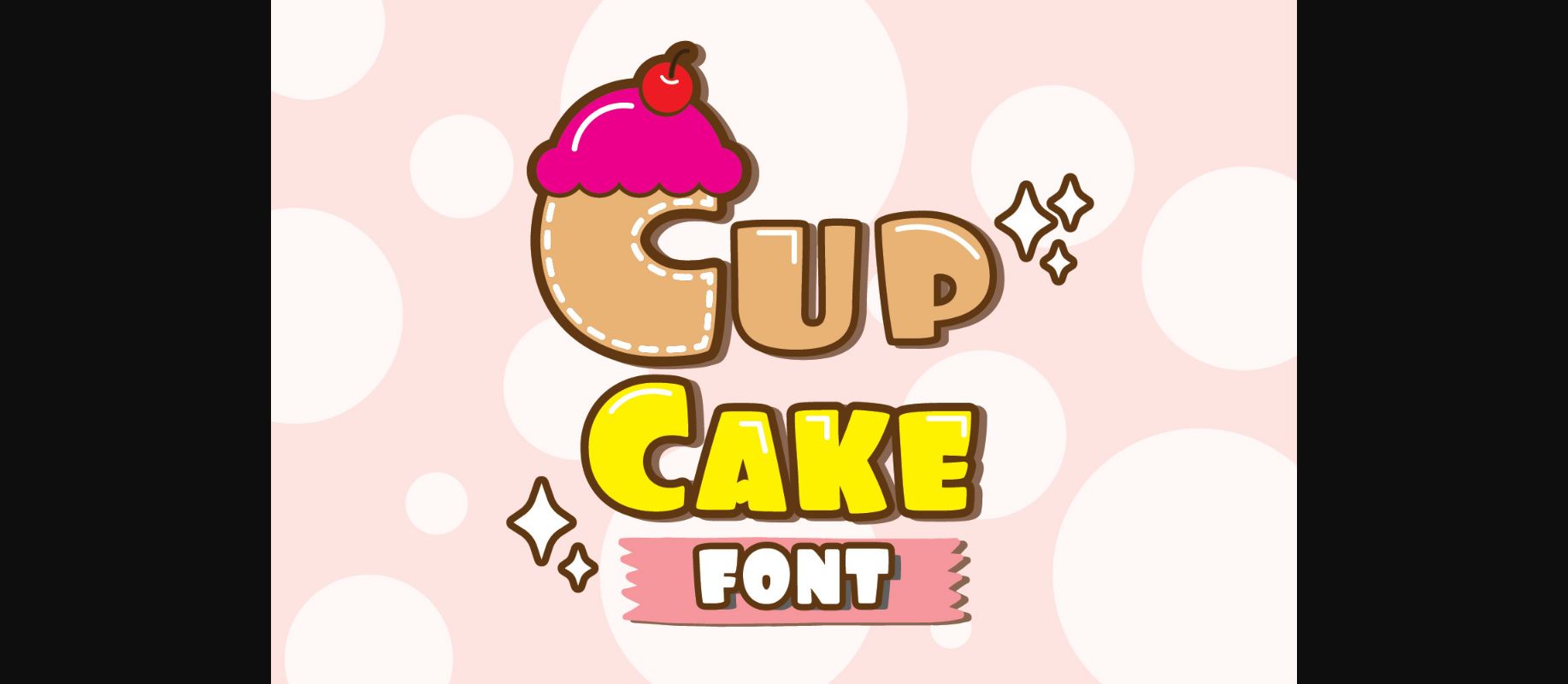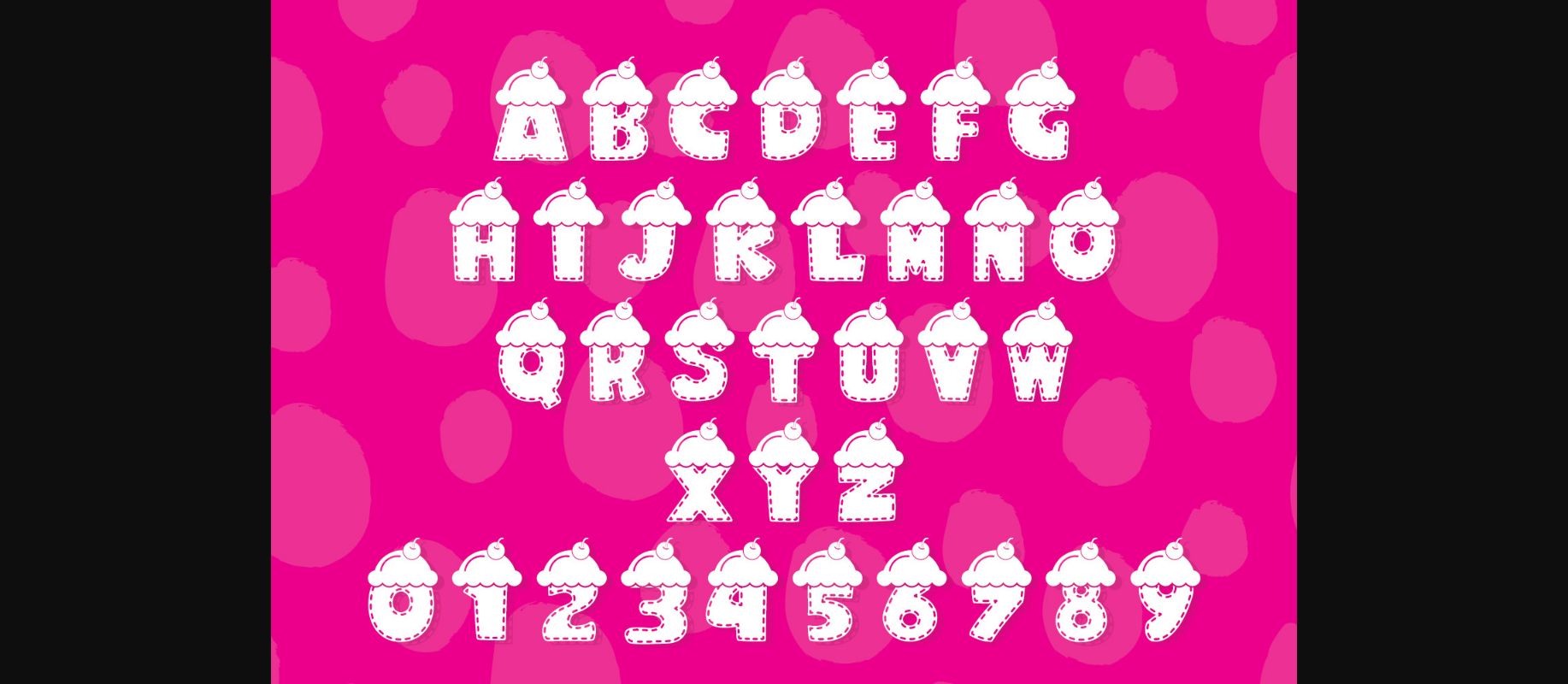
Cup Cake Font
About Cup Cake Font
Each letter has cupcake tops, adding a delightful touch to your text. This font is perfect for adding a playful and festive element to birthday invitations, party decorations, bakery logos, and more. Let your creativity run wild as you sprinkle your designs with the delicious and irresistible Cupcake Font!